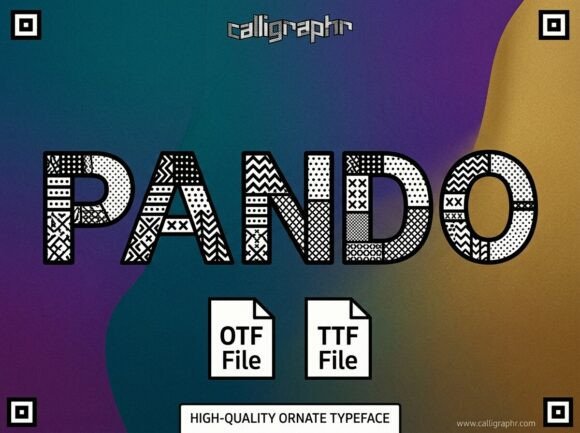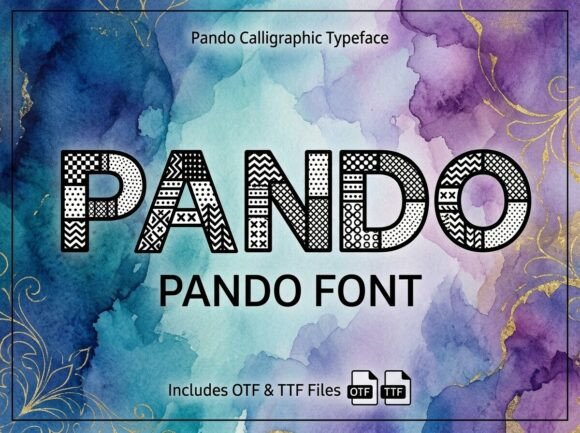
Introduction to Pando Font
Celebrate a world of vibrant patterns with Pando, a rhythmic display typeface that captures a “global-and-geometric” soul.
This font features bold, hollow sans-serif letterforms uniquely characterized by an eclectic mix of hand-drawn internal textures—including zigzags, polka dots, chevrons, and cross-hatches—that evoke the rich heritage of African wax prints and artisanal patchwork With its heavy decorative weight and high-energy personality, Pando is the premier choice for independent lifestyle branding, creative world-music posters, artisanal product packaging, and high-impact “maximalist-and-modern” social media headers.
Key Features of Pando Font